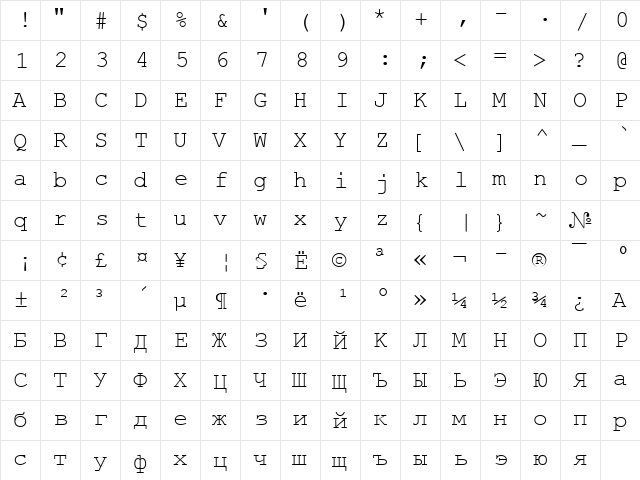
Bulgarian Courier Thin Font Preview
Design Context for Bulgarian Courier Typeface
Bulgarian Courier uses fixed-width spacing throughout, giving it the structured, systematic character associated with coding environments and technical documentation. Its slender proportions lend an understated elegance to any composition.
Well-suited to data-driven dashboards, coding tutorials, and any design that wants to reference the world of programming.
Pro Tip: Use Bulgarian Courier with slightly increased line-height for extended reading — fixed-width spacing can feel dense in longer passages without extra breathing room.